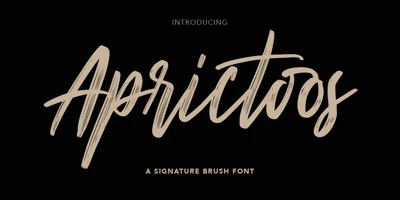
Aprictoos Font
This delightful typeface excels in various warm-toned applications including organic food packaging, farmer's market branding, summer festival posters, artisanal jam labels, health food store identities, smoothie bar menus, natural cosmetic products, and sun-kissed lifestyle brands. The Aprictoos Font captures the sweet essence of ripe apricots with its soft, rounded letterforms that radiate warmth and natural wholesomeness like fruit basking in golden sunshine.
What makes this font truly exciting is its ability to evoke the sensory pleasure of biting into fresh summer fruit through typography that feels both juicy and sophisticated. The lovingly crafted characters feature gentle curves, peachy-soft edges, and organic flow that make every word feel naturally sweet and irresistibly approachable. Its distinctive personality combines fruity playfulness with artisanal quality, creating typography that appeals to health-conscious consumers and design enthusiasts alike.
The Aprictoos Font family includes fruit-inspired variations: Light, Regular, Medium, Bold, and Extra Bold weights, plus decorative alternates with fruit-themed embellishments. Each family member maintains the signature peachy sweetness while providing flexibility for creating designs that range from delicately fresh to boldly flavorful.